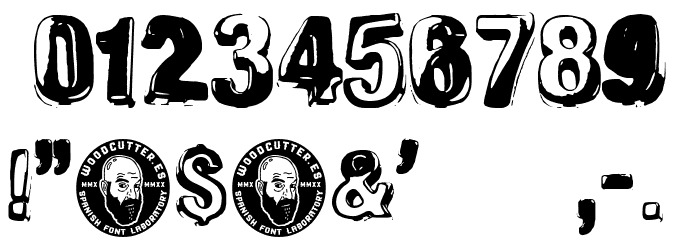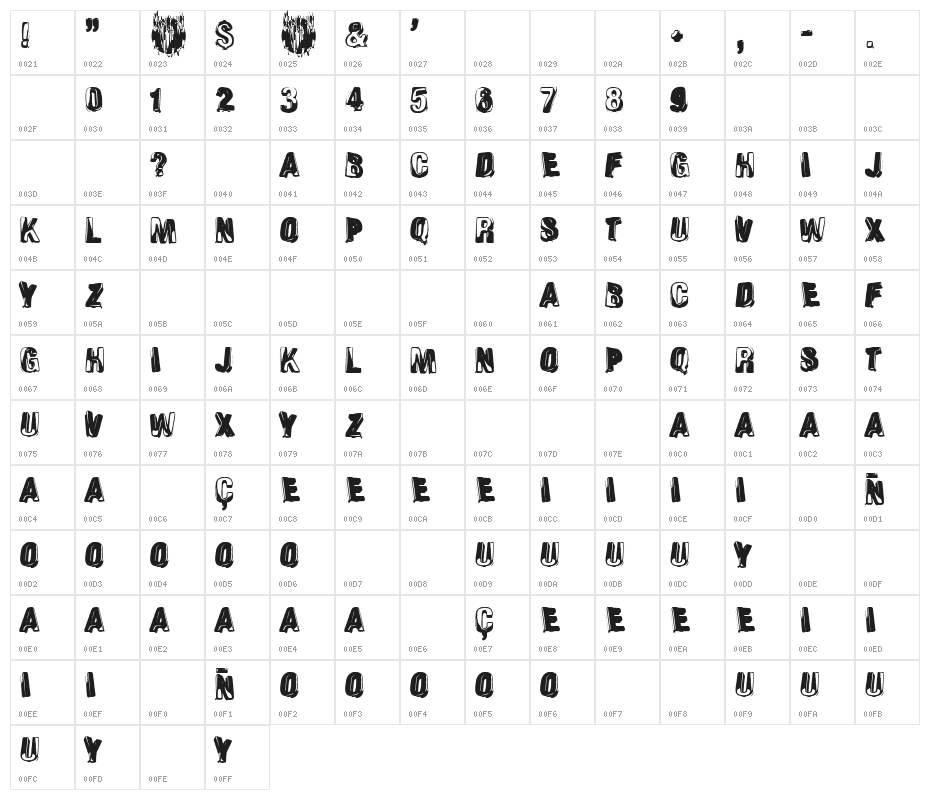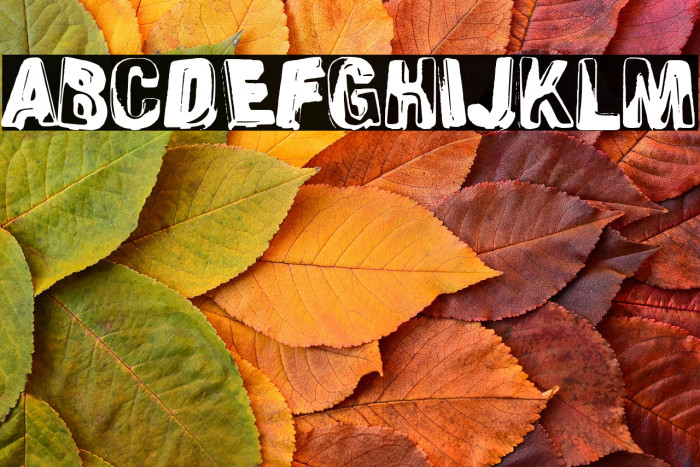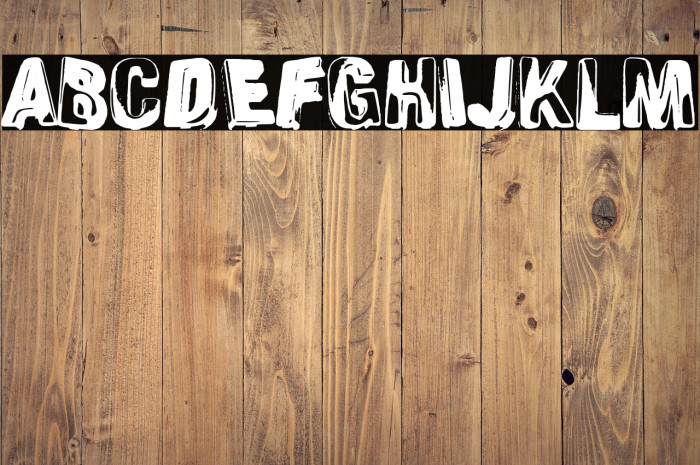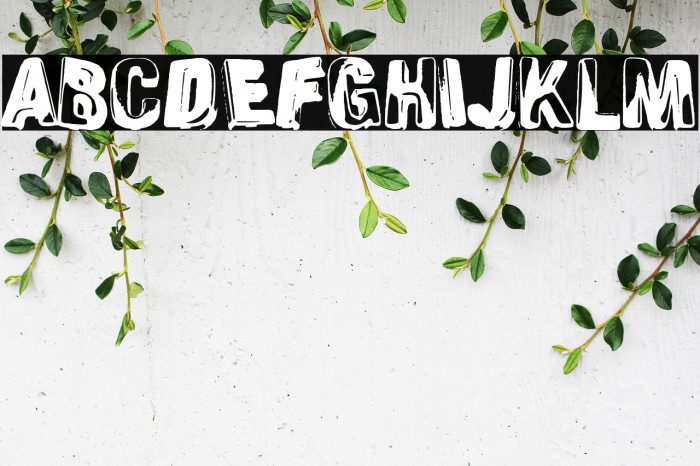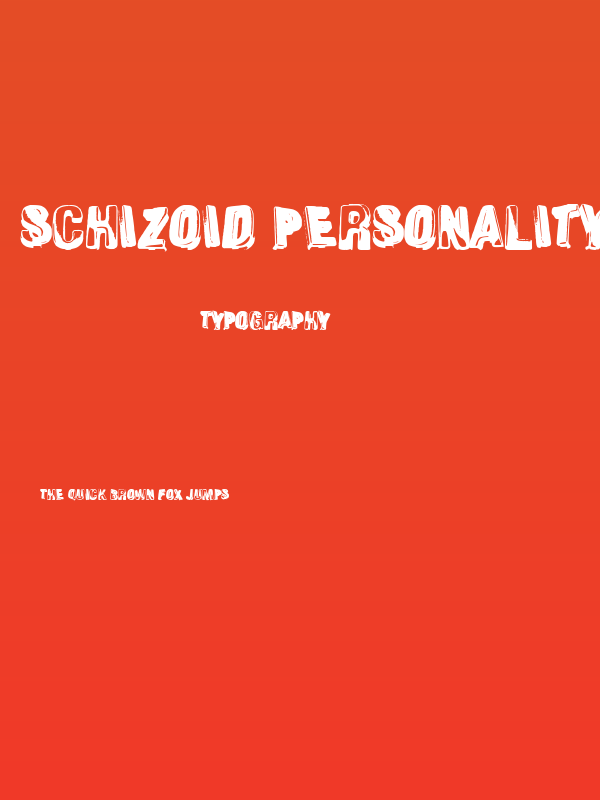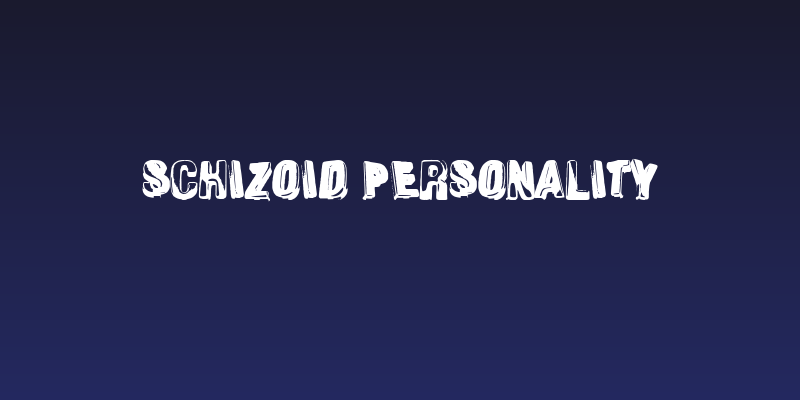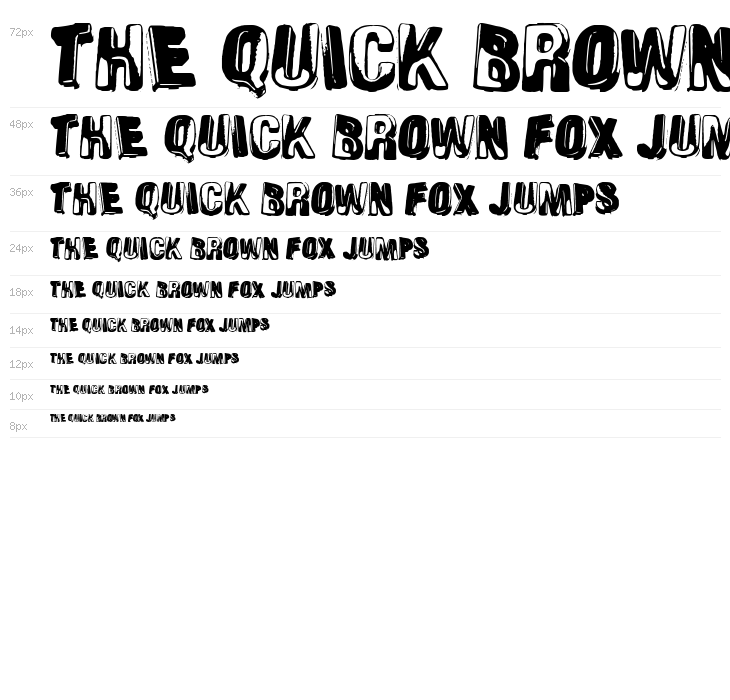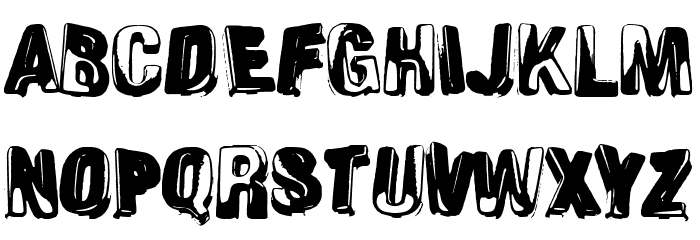
Schizoid Personality Font
Schizoid Personality Description
This font features a bold and expressive style with a distressed, grunge-like texture. Each character appears as if it has been hand-painted with uneven strokes, giving it a raw and dynamic appearance. The letters are uppercase and lowercase, with numbers and a selection of special characters. The design is highly decorative, making it stand out with its unique, artistic flair. The font's rough edges and varying stroke thicknesses contribute to its edgy and rebellious feel, making it ideal for projects that require a strong visual impact.
| Proposed Projects | Ideal for music album covers, posters, streetwear branding, and edgy graphic design projects. |